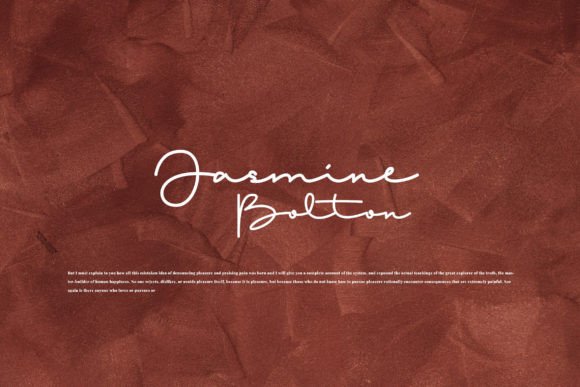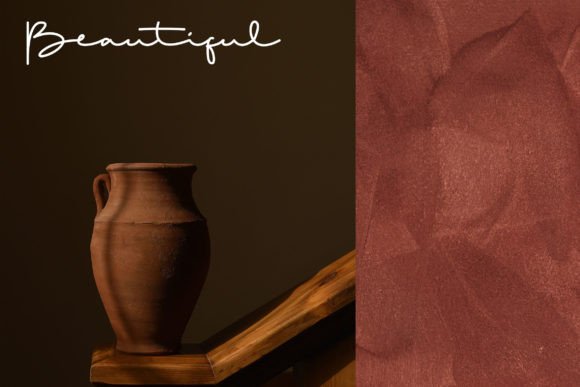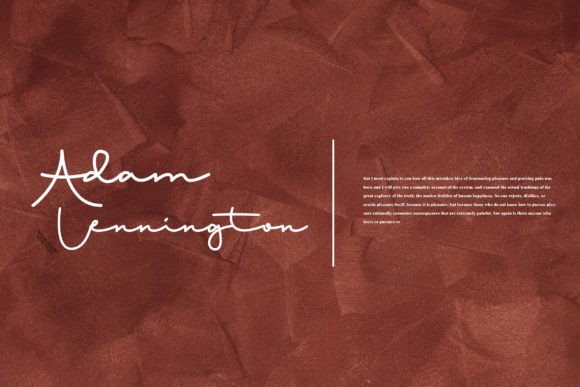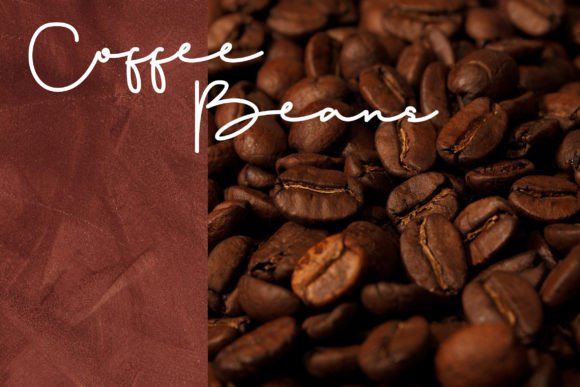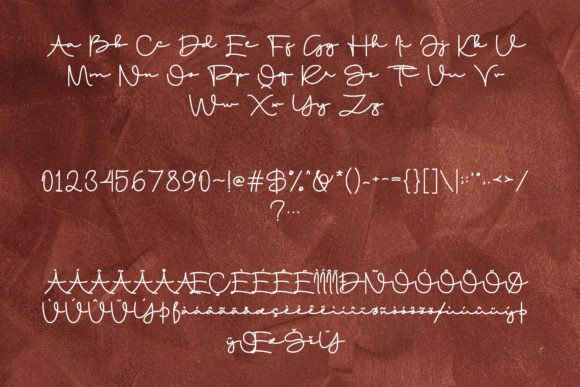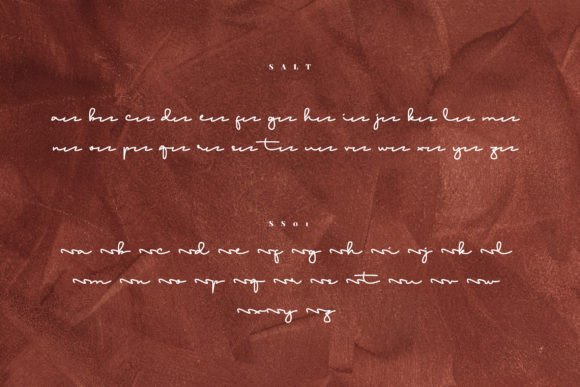
The Perfect Signature: Unveiling the Dunialy Font
Have you ever been brainstorming ideas for a new project and suddenly, the perfect font pops into your head? It’s like a spark of creativity that sets your imagination ablaze. For designers, this moment is what drives us to create something truly special. And that’s exactly what happened when we discovered the Dunialy Font – a stunning script font with monoline lines that gives the impression of a signature.
The Dunialy Font is designed to make a lasting impression, whether it’s for a wordmark, branding, crafts, invitation cards, events, or even wedding stationery. Its elegant and refined look makes it a valuable asset for designers who want to elevate their work. With the Dunialy Font, you can add a touch of sophistication and personality to your designs, making it a must-have in your typography arsenal.
Dunialy Font Key Features
- Unique Characteristics: Dunialy Font features a unique blend of modern and vintage elements, with intricate details and ornate flourishes that set it apart from other fonts in its class.
- Kerning and Ligatures: Dunialy Font includes advanced kerning and ligature features, ensuring that text is rendered with precision and elegance, even in complex compositions.
Dunialy Font Review
Overall, I’d say the Dunialy font is a unique and stylish addition to any design project. It’s perfect for adding a touch of sophistication and elegance to your content. ✨
Here are some things that work well with the Dunialy font:
- It’s highly legible, even at small font sizes, making it ideal for body text.
- The font’s rounded edges and smooth curves give it a friendly and approachable feel.
- The font is highly versatile and can be used for a wide range of design projects, from business cards to magazine layouts.
- It’s available in a variety of weights, from light to bold, giving you plenty of options for customizing your design.
- The font may not be the best choice for projects that require a lot of bold or dramatic emphasis, as it can come across as a bit too soft.
- The font’s rounded edges can make it difficult to read at very small sizes or in low-light conditions.
- The font may not be suitable for projects that require a lot of technical or scientific content, as it can be a bit too ornate.
- Some users may find the font’s style a bit too flashy or over-the-top.
Overall, I think the Dunialy font is a great choice for designers who want to add a touch of style and sophistication to their projects. Just be sure to use it in the right context and with the right amount of emphasis.
For optimal results, use Dunialy Font in bold or italic styles to emphasize text. It is suitable for headings, titles, and short paragraphs. It’s also great for creative and artistic projects, such as posters, flyers, and infographics.